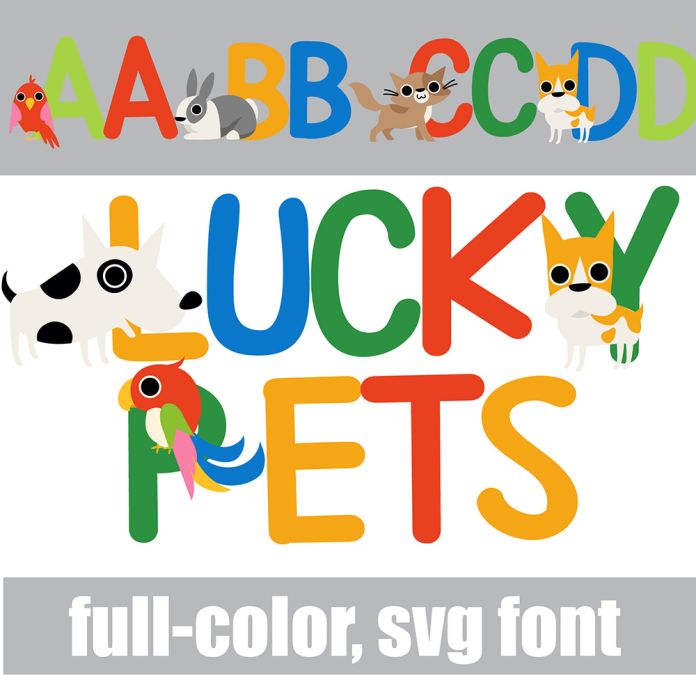
this full-color font features a variety of pets on the uppercase and a lowercase without. There is an alt case with additional colors you can access through your system's character map. This font works best for titles, displays, posters and more. Please note color fonts will show as black in non compatible programs. This font type is compatible with Silhouette Studio.